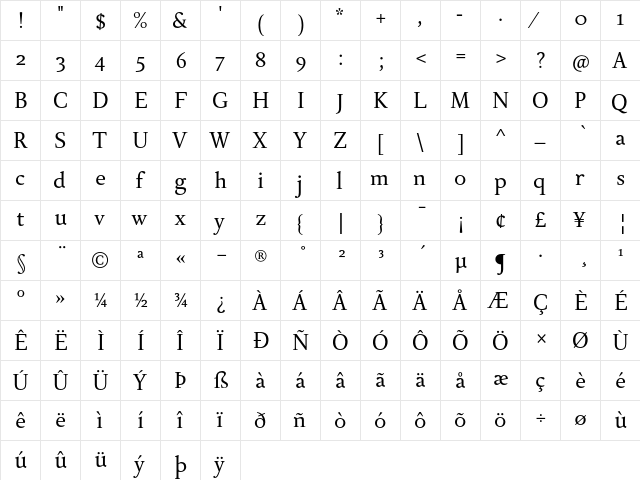
Delicato-Regular Regular
Design Context for Delicato-Regular Typeface
Delicato-Regular takes a measured approach to typography — its balanced proportions and neutral character make it a reliable workhorse for both digital and print work.
Pro Tip: Use Delicato-Regular in both headline and body roles to test its range before committing to a single application.